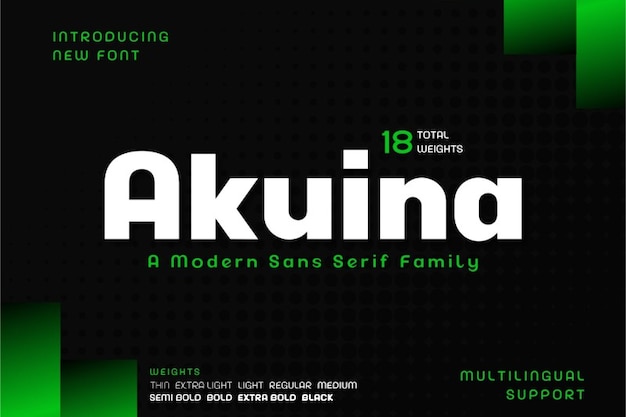
Akuina Font
"Akuina" is a bold, modern font that embodies the spirit of contemporary technology. Each letter features strong lines and a sleek design, exuding confidence and innovation. Its eye-catching aesthetic makes it perfect for tech startups, digital branding, or any project that aims to convey a sense of cutting-edge progress and dynamism, while maintaining a clean and professional appearance.